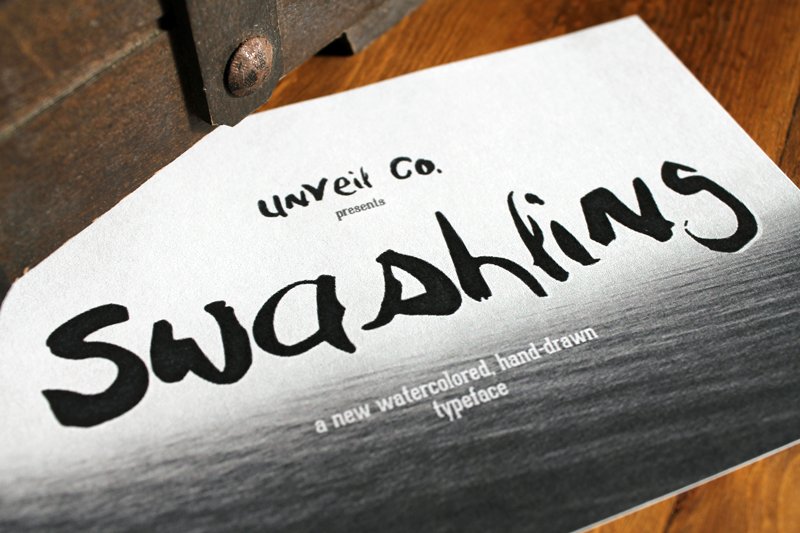
Swashling Typeface
Introducing Swashling Typeface -- Handmade/Hand-drawn.
This typeface came out of Watercoloring -- so it is a handmade font using a brush with watercolors. With this typeface the creations are limitless; create logos, posters, fliers, etc. If you do use this font in a design -- I'd love to see it, please send it my way.